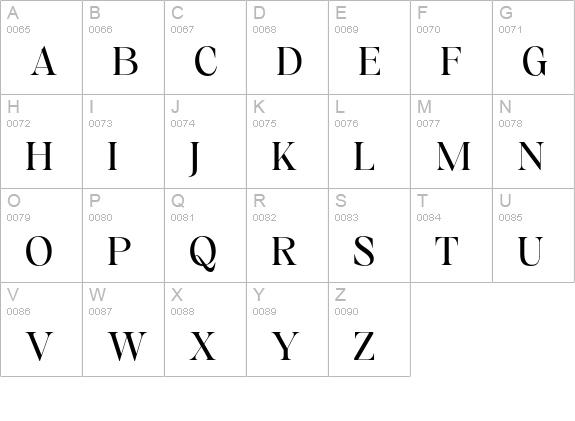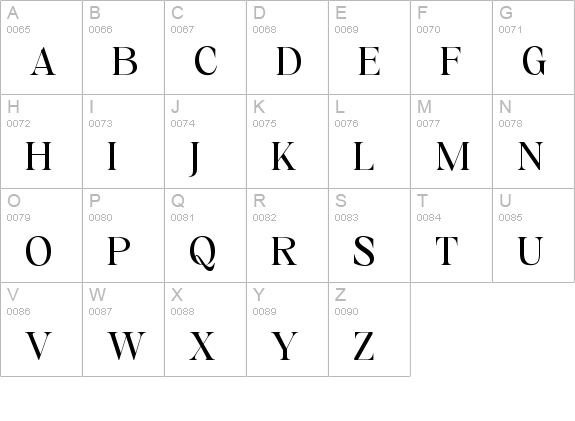
Gamilia is a demo font in the General > Serif category, designed by craftsupplyco. It has been downloaded 100 times and is available for Windows, Mac and Linux.
Gamilia is a stunning and elegant font that exudes sophistication and charm. With its graceful curves and stylish letterforms, Gamilia is perfect for adding a touch of class to any design project. Whether you're creating invitations, logos, or branding materials, this versatile font is sure to make a lasting impression.